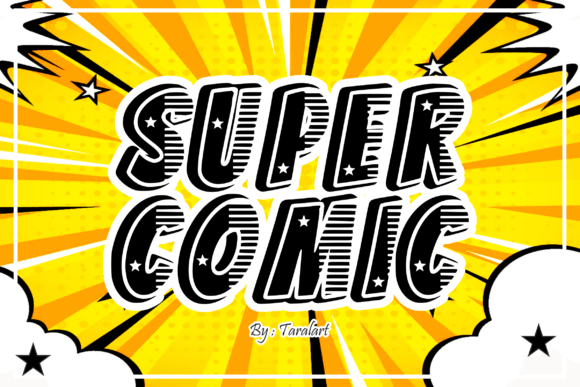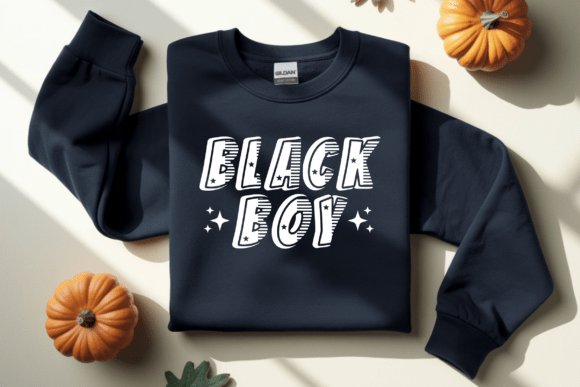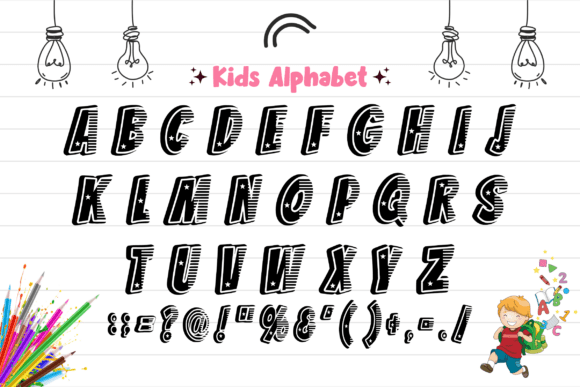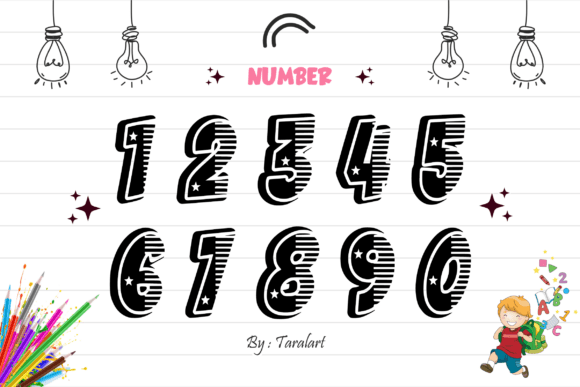
Introduction to Heroes Font
Unveiling “Heroes,” a contemporary comic font, inspired by the sheer vibrancy of superhero chronicles.
Famed for its powerful characters, this font radiates a bold charm that is incredibly user-friendly It’s exceptional for emblazoning sublimation designs on clothing items such as t-shirts, bags, or on everyday items like mugs.